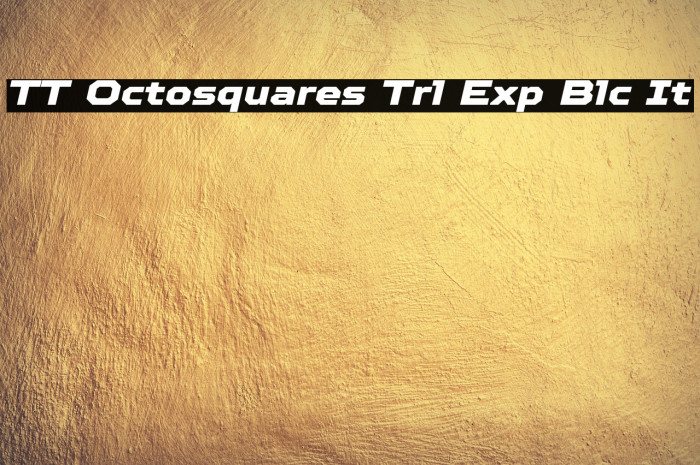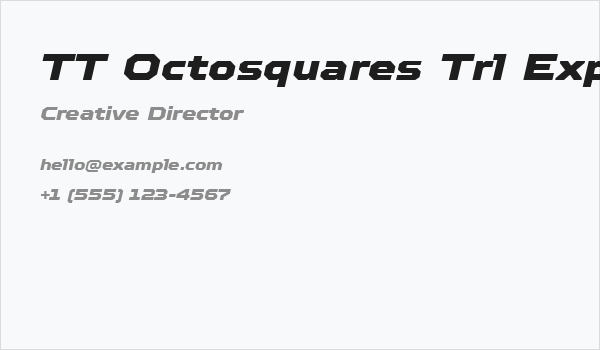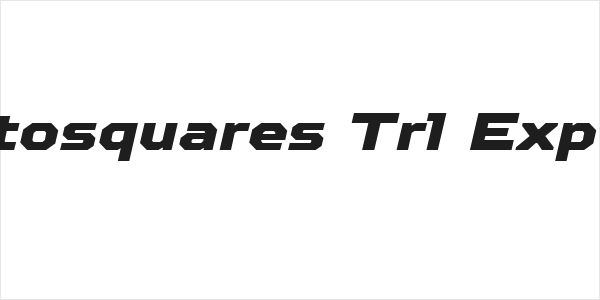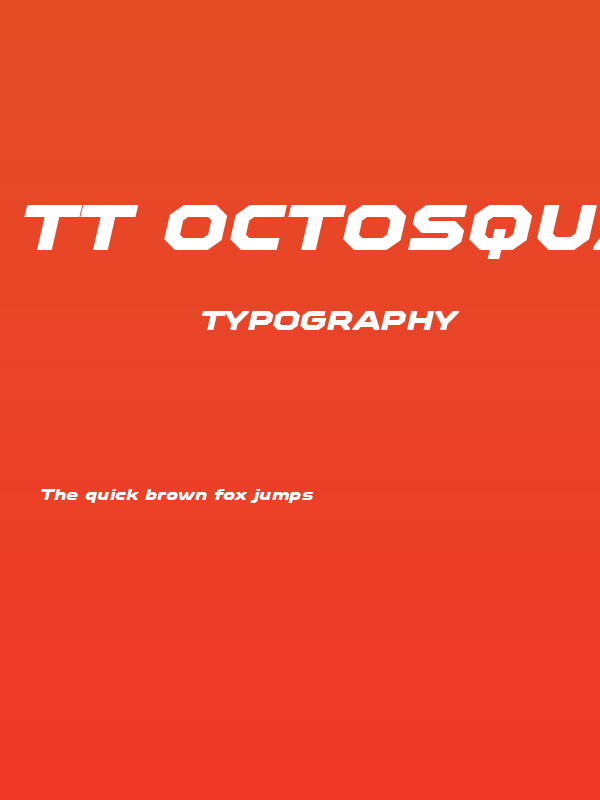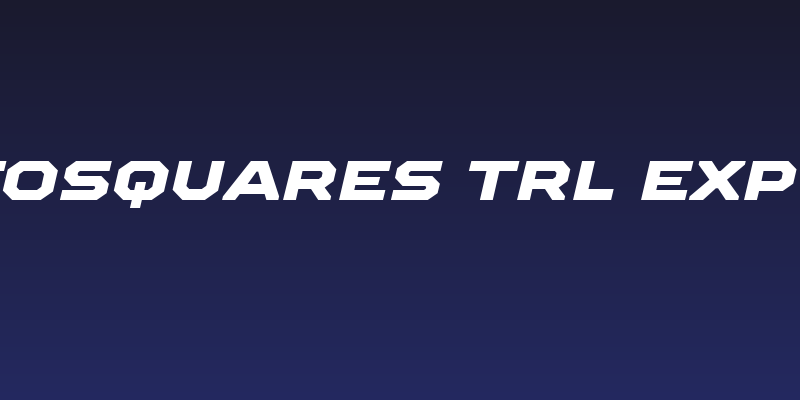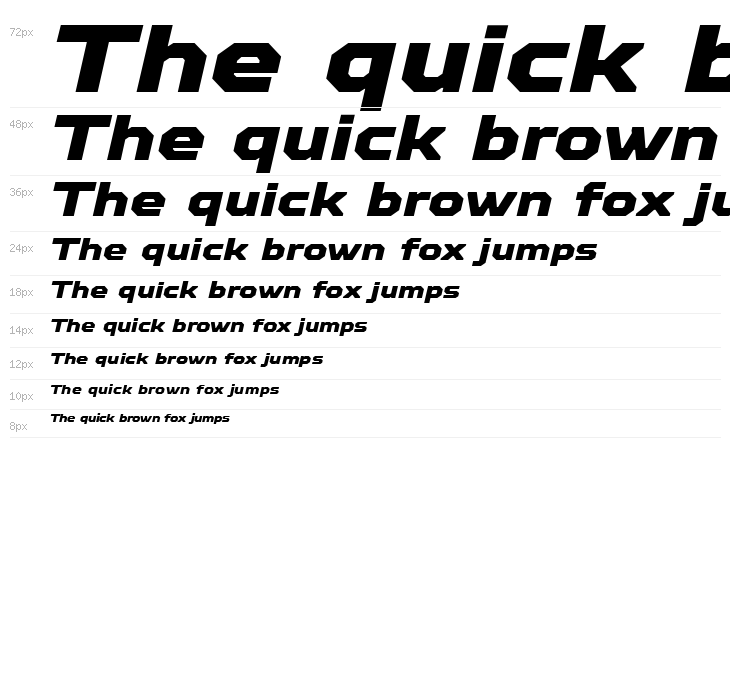
TT Octosquares Trl Exp Blc It Font
TT Octosquares Trl Exp Blc It Description
This font features a bold and dynamic design with a distinctly modern and geometric aesthetic. The characters are constructed with sharp angles and a slight italic slant, giving them a sense of movement and energy. The uppercase and lowercase letters maintain a consistent style, with the uppercase being slightly more angular. Numbers and special characters follow the same design principles, ensuring uniformity across all glyphs. The font's expanded width and bold weight make it particularly eye-catching, suitable for projects that require a strong visual impact.
| Proposed Projects | Ideal for sports branding, tech-related designs, and dynamic advertising campaigns. |